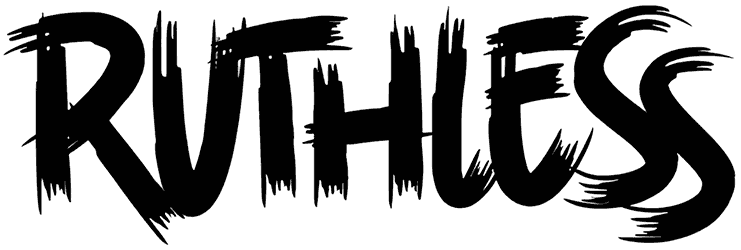
Ruthless Font
For a show of fear and anxiety, hand-painted writings can create a special harmony. This horror font, with its bold and realistic face, can convey a chilling vibe to your viewers. Ruthless doesn’t have any offer for lowercase letters and some numbers, but still would be a hunting item for various designs such as movie posters, games, apparel, and so on.